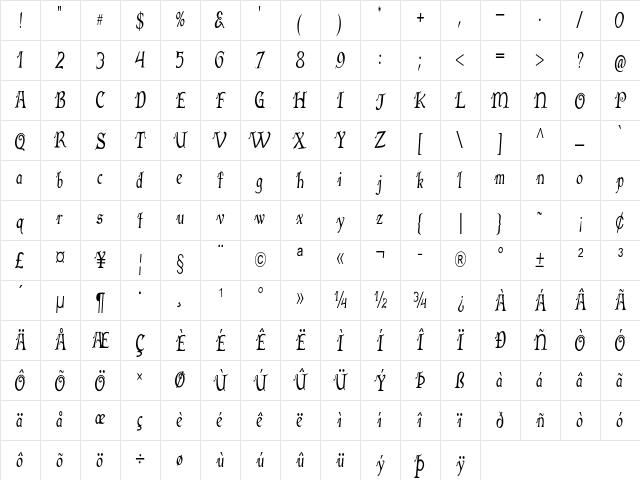
Stemzo Condensed Regular Free Font
Stemzo Condensed Regular
Style: Condensed Regular
Complete Stemzo Condensed Regular glyph index. Displaying only characters natively supported by Stemzo Condensed Regular font.
Design Context for Stemzo
Stemzo is a composed and adaptable typeface that performs quietly and consistently across a wide range of design contexts. Its narrow stance lets it pack a punch even in space-constrained designs.